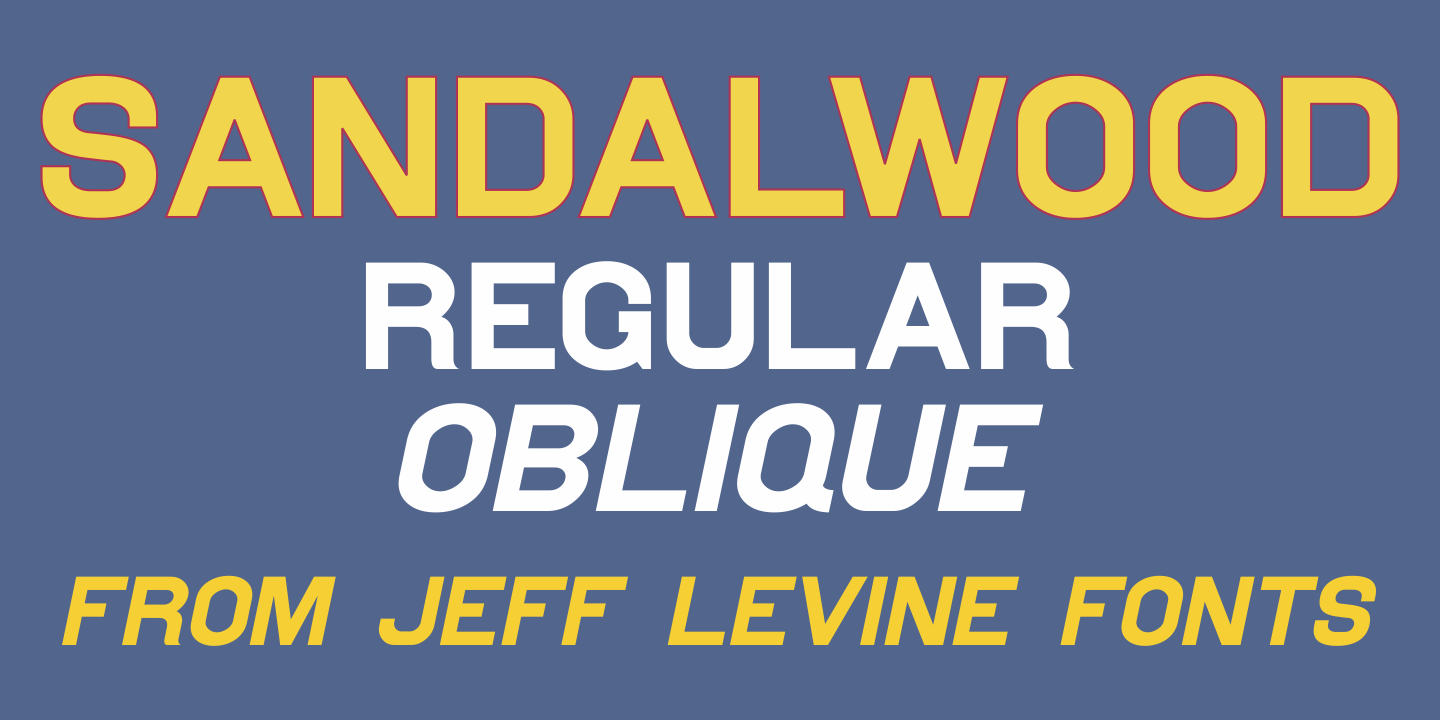
Sandalwood JNL Font Free Download is a charming, vintage-inspired typeface that captures the warmth and nostalgia of classic sign painting and old-fashioned advertising. Perfect for logos, posters, packaging, event flyers, menus, and retro branding projects, this font brings timeless appeal and handcrafted character to your creative work. With its bold letterforms and decorative flair, Sandalwood JNL Font evokes a rustic, welcoming vibe.
With Sandalwood JNL Font Free Download, you’ll receive a complete set of uppercase letters, numbers, and essential punctuation, offering flexibility for both print and digital applications. Whether you’re designing vintage product labels, signage for a café, or promotional materials for an event, this font ensures readability while adding a distinctive, old-school charm.
Bring nostalgic elegance and rustic beauty to your designs with Sandalwood JNL Font Free Download. Its vintage-inspired style makes it a standout choice for projects that need authenticity, warmth, and bold visual impact.